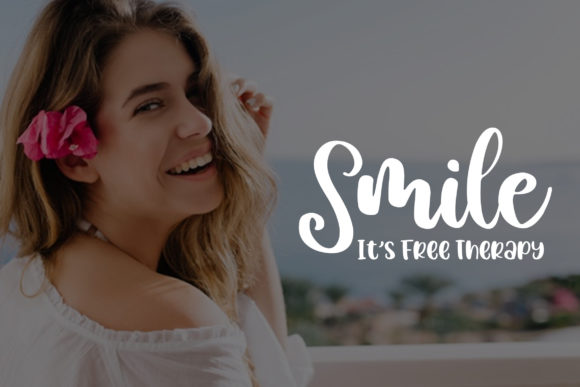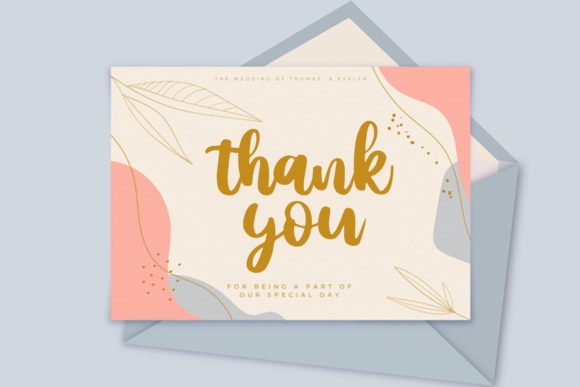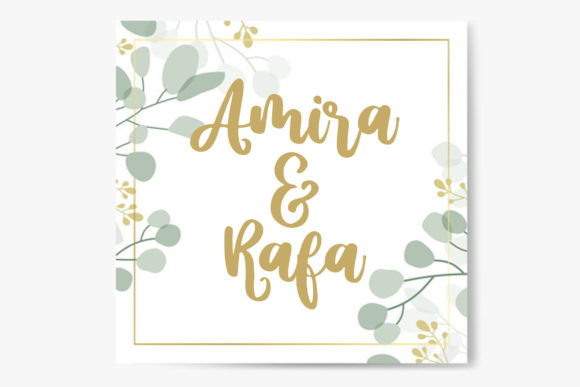
Introduction to Rasya Font
Rasya is an exciting handwritten font with beautiful characters that can make your text appear elegant, luxurious, and modern.
Use it for branding projects, logos, book cover designs, T-shirt designs, social media posts, advertisements, product packaging, etc .
Key Features of Rasya Font
Why Choose Rasya Font?
Rasya Font offers exceptional quality and versatility, making it a valuable addition to your design toolkit. Whether you’re creating for personal projects or commercial use, Rasya Font delivers professional results.